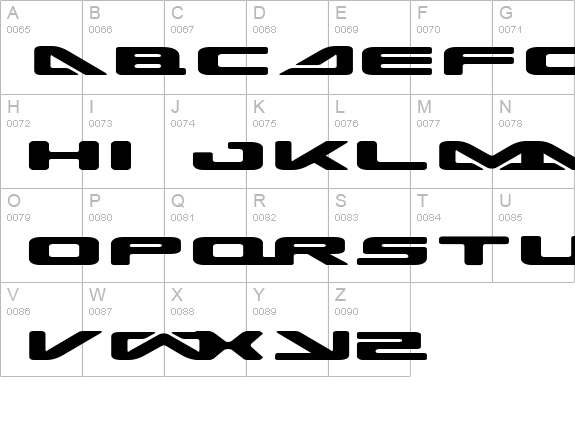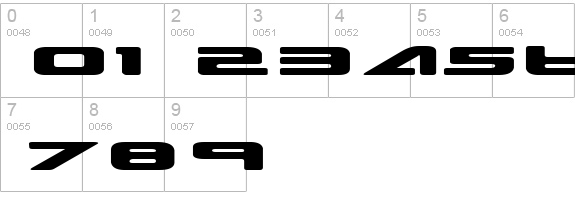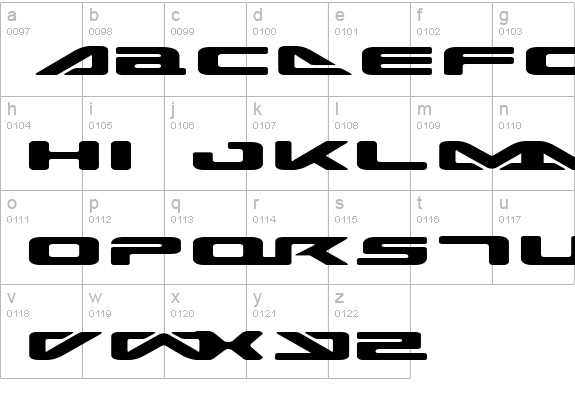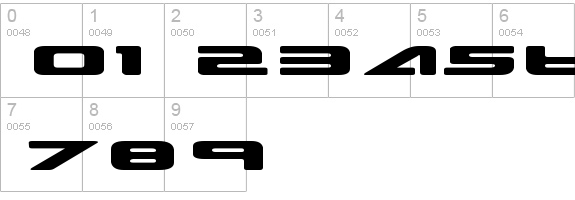
Sea Dog 2001 Expanded is a distinctive, extended-width variant in the Sea typeface family \xE2\x80\x94 well suited to design and typography projects.
Introducing Sea Dog 2001 Expanded font, a captivating typeface that exudes boldness and sophistication. This font is the epitome of versatility, as it seamlessly blends a modern aesthetic with a timeless charm. Its expanded design adds an extra level of impact, making it perfect for headlines, logos, and branding projects that demand attention. With its clean lines and balanced proportions, Sea Dog 2001 Expanded font exudes a sense of confidence and professionalism. The letterforms are meticulously crafted, ensuring legibility even at smaller sizes. Each character showcases a unique personality, effortlessly adding character and style to any design. What sets Sea Dog 2001 Expanded font apart is its availability as a free download at FontsMarket.com. This means that designers, creatives, and enthusiasts alike can freely access this remarkable typeface and incorporate it into their projects without any restrictions. Whether you're a seasoned professional or just starting your creative journey, this font is a valuable addition to your font library. Sea Dog 2001 Expanded font is a true testament to the power of typography, seamlessly merging form and function to create a visually stunning experience. Its versatility allows it to shine in a multitude of design contexts, from print to digital, ensuring that your message is conveyed with clarity and impact. Embrace the freedom to express your creativity with Sea Dog 2001 Expanded font. Download it now for free at FontsMarket.com and unleash the full potential of your designs.